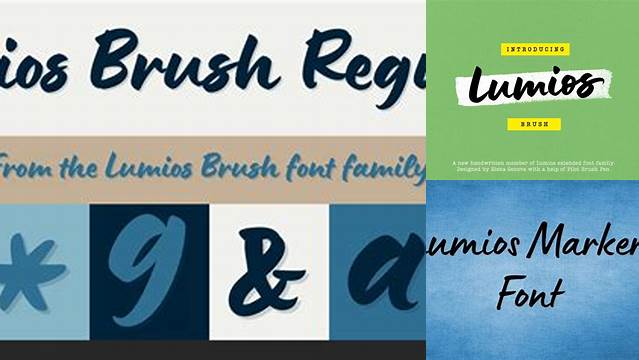
Hey there, creative folks! Are you on the hunt for that perfect, hand-drawn vibe for your next project? Well, lemme tell ya, the Lumios Brush free font download might just be exactly what you need. This isn't just any font, guys; it's a game-changer for adding a personal, artistic touch to everything from logos to social media graphics. Trust me, finding a high-quality brush font that’s also free can feel like striking gold, and Lumios Brush totally delivers on that front. It brings a unique blend of elegance and raw, expressive energy that can truly elevate your designs. We're talking about a font that makes your text feel like it was painted with care, with all those beautiful imperfections that make brush lettering so captivating. So, buckle up, because we're gonna dive deep into why this font is a must-have, how to grab it for free, and all the cool ways you can put it to use. Get ready to inject some serious personality into your creative endeavors with the amazing Lumios Brush!
Unveiling Lumios Brush: A Deep Dive into its Aesthetic Charm
When we talk about the Lumios Brush free font download, we're not just discussing a typeface; we're exploring a piece of digital art designed to bring warmth and authenticity to your projects. Lumios Brush stands out with its distinct aesthetic charm, characterized by its organic, fluid strokes that mimic genuine hand-painted lettering. Each character possesses a unique, slightly uneven baseline and varying stroke thickness, which collectively contribute to its wonderfully human and expressive quality. This isn't some rigid, sterile sans-serif; this is a font that breathes life into your words, making them feel personal and handcrafted. The gentle texture you can almost feel within its strokes adds another layer of depth, moving beyond mere outlines to suggest the bristles of a brush against paper. It’s got that perfect balance of being legible yet beautifully artistic, ensuring your message comes across clearly while still captivating the eye with its raw, untamed beauty. The slight imperfections are its strengths, giving it a charismatic, unpolished look that’s currently super popular in design trends. Whether it's the subtle dry brush effect or the natural flow from one letter to the next, Lumios Brush just screams authenticity. Designers often flock to fonts like this because they offer a quick way to achieve a custom, bespoke feel without needing to hand-letter everything themselves. It truly captures the essence of modern brush calligraphy, making it an invaluable asset for anyone looking to add a touch of handcrafted elegance to their creative work. So, if you're aiming for a design that feels less like a template and more like a passion project, delving into the aesthetic charm of Lumios Brush is definitely the way to go, giving your work that sought-after personal touch.
Why Lumios Brush is the Go-To Free Brush Font for Designers
For many designers, the Lumios Brush free font download has become a secret weapon in their creative arsenal, and for good reason! This isn't just another free font floating around the internet; it truly stands out as a go-to option, especially when budget constraints meet a demand for high-quality, expressive typography. The versatility of Lumios Brush is genuinely impressive. It can seamlessly adapt to a myriad of design styles, from rustic and bohemian to modern and edgy, making it incredibly flexible for diverse projects. What makes it a standout is its authentic brush stroke appearance, which lends an immediate sense of craftsmanship and organic appeal. Unlike some free fonts that might look a bit amateurish or unpolished, Lumios Brush maintains a professional and artistic quality that rivals many paid alternatives. This quality means you can use it with confidence, knowing it will elevate your design rather than detract from it. Another huge plus is its legibility. Despite its artistic flair and dynamic strokes, the individual characters are well-defined, making text readable even at smaller sizes, which is often a challenge with more elaborate brush scripts. This thoughtful design ensures that while your message is delivered with style, it’s never sacrificed for clarity. Furthermore, the sheer availability as a free download removes a significant barrier for students, freelancers, and small businesses who need impactful design resources without a hefty price tag. It democratizes access to beautiful typography, allowing more people to create stunning visuals. Whether you're working on a personal passion project or a client commission, Lumios Brush provides that instant dash of personality and handmade charm that clients absolutely adore. Its ability to convey emotion and character makes it incredibly effective for projects requiring a warm, friendly, or artistic tone. In a world saturated with generic fonts, Lumios Brush offers a refreshing, authentic voice that helps your designs cut through the noise and capture attention. That's why, time and time again, designers find themselves reaching for this exceptional free brush font.
Mastering Lumios Brush in Graphic Design Projects: Tips & Tricks
So you’ve got your Lumios Brush free font download, and you’re itching to use it in your graphic design projects – awesome! But simply typing out words isn’t always enough to unleash its full potential. Mastering Lumios Brush means understanding how to integrate it effectively into various design software and applying a few savvy tricks to make it shine. First off, when working in applications like Adobe Photoshop, Illustrator, or Canva, treat Lumios Brush not just as text, but as a design element. Experiment with size and placement. Because it has such a strong personality, it often works best as a headline, a short phrase, or a key branding element rather than for long blocks of body text, where its unique strokes might hinder legibility. One fantastic trick, especially in Illustrator, is to convert the text to outlines (Type > Create Outlines). This transforms the font into editable vector shapes, allowing you to manipulate individual strokes, points, and curves. You can then adjust the thickness, add unique flourishes, or even connect letters more seamlessly, truly customizing the font to fit your specific vision. This is super useful for logos or intricate illustrations where you need absolute control over every detail. Don't shy away from color experimentation either. While Lumios Brush looks amazing in classic black, try using it with muted pastels for a softer, whimsical feel, or bold, vibrant colors for an energetic, modern look. Consider adding subtle effects like a drop shadow, a slight inner glow, or even a texture overlay (like paper or watercolor) to give it more depth and visual interest. Remember to pair it wisely with other fonts. A bold, expressive brush script like Lumios often benefits from being paired with a clean, minimalist sans-serif or a simple serif font for body text. This contrast creates visual hierarchy and ensures your design remains balanced and easy to read. And here's a pro tip: pay attention to kerning and leading. Sometimes, default spacing might not perfectly suit the organic nature of brush fonts. Manually adjusting the space between letters (kerning) or lines of text (leading) can dramatically improve its appearance and readability, making your Lumios Brush text look perfectly polished. By applying these tips and tricks, you’ll not only use Lumios Brush but master it, transforming your graphic designs into captivating works of art.
Embracing the Hand-Drawn Charm: The Aesthetics of Lumios Brush Font
The enduring appeal of your Lumios Brush free font download really boils down to its remarkable ability to perfectly capture and embody the irresistible hand-drawn charm that so many designers and consumers crave. In a digital world often dominated by sleek, sterile, and perfectly geometric designs, Lumios Brush offers a refreshing counterpoint, bringing back the warmth, authenticity, and human touch that comes from something created by hand. The aesthetics of Lumios Brush are all about celebrating imperfection and organic flow. Its brush strokes are not uniform; they vary in thickness, displaying that delightful